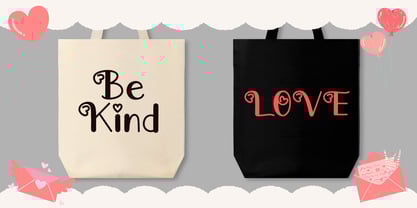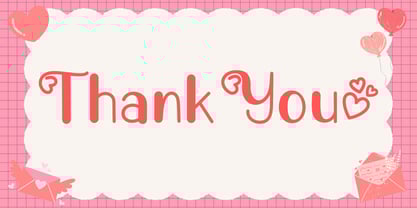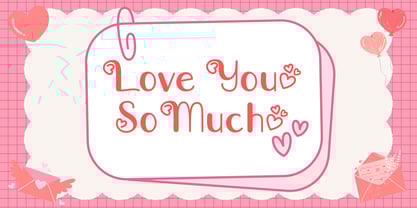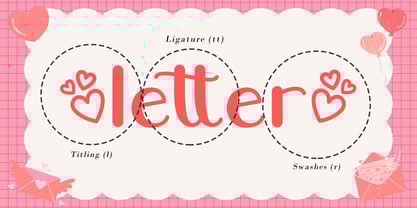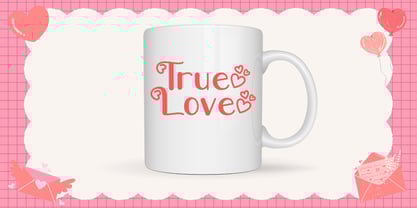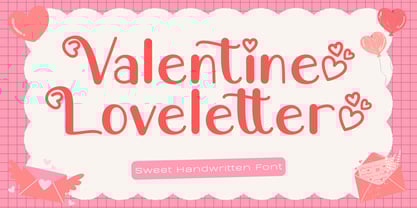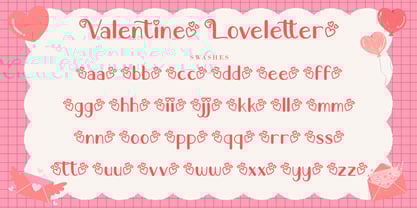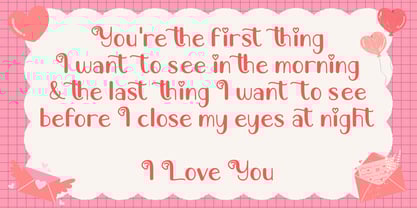
Valentine Loveletter
by AEN Creative Studio
The Valentine Loveletter Font Family was designed by Agung Eko Nugroho and published by AEN Creative Studio. Valentine Loveletter contains 2 styles and family package options.
Valentine Loveletter is a modern handwritten display font designed with clean strokes, simple structure, and a romantic spirit. It delivers the perfect balance between elegance and playfulness, making it a versatile choice for Valentine cards, mugs, scrapbooking pages, and digital craft projects. With its charming handmade feel and delightful details, Valentine Loveletter brings sincerity and sweetness to your designs, making even the simplest phrase look heartfelt and meaningful.